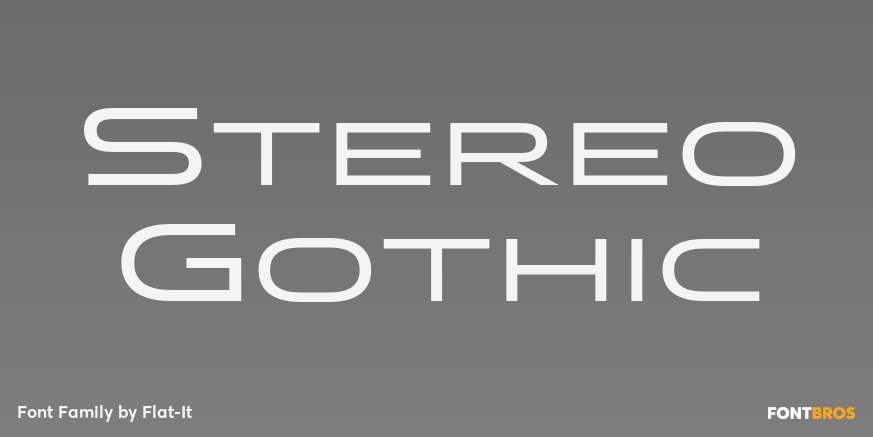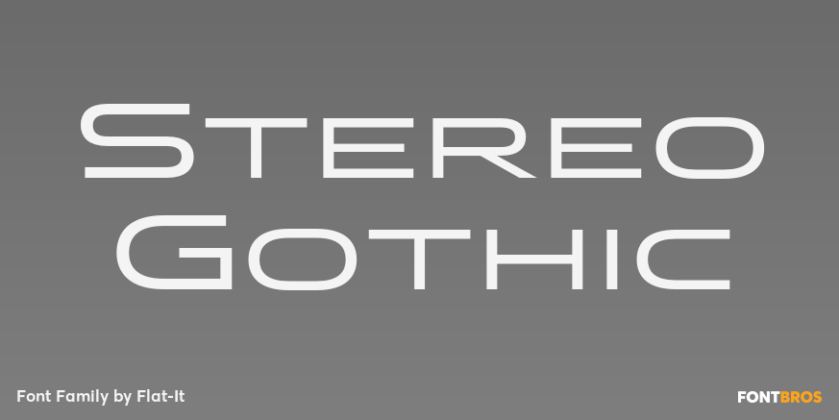
HomeFont BrosSans SerifStereo Gothic Sans Serif Stereo Gothic FacebookXPinterestWhatsApp 1 of 1 About Stereo Gothic The concept of this font is very simple. Wide and Legible, No decorative, Just simple. The variety of weights make your design more flexible.  DOWNLOAD ON FONT BROSThis font is sold and delivered by Font Bros. Font Canyon may earn a commission if you buy through this link. People also explored Sinestta Font Mafgarious Font Wincent Outline Extra Light Font Clautya Font Carpe Diem Luxury Font Richard Benoitt Font Manchester Park Font Realistic Mock-ups on Vintage Background Lovely Garland Font 300 0 TagsStereo Gothic Font Previous articleStickshiftNext articleKeep on Truckin\’ LEAVE A REPLY Cancel reply Comment: Please enter your comment! Name:* Please enter your name here Email:* You have entered an incorrect email address! Please enter your email address here Website: Save my name, email, and website in this browser for the next time I comment. Personal Use Free Vogue Font Personal Use Free Read more about this font Zero Panzer Personal Use Free Read more about this font Deftone Personal Use Free Read more about this font Eniem Personal Use Free Read more about this font BLOG Free vs Paid Fonts: Why Investing in Premium Fonts Is Worth It Free vs Paid Fonts: Why Premium Fonts Are Worth It in 2025 The debate of free vs paid fonts continues in the design world. While... Elegant Wedding Invitation Fonts – Handwritten & Script Fonts Best Fonts for T-Shirt Design – Top 2025 Picks How to Install and Use Fonts on Windows, macOS, and Web Projects